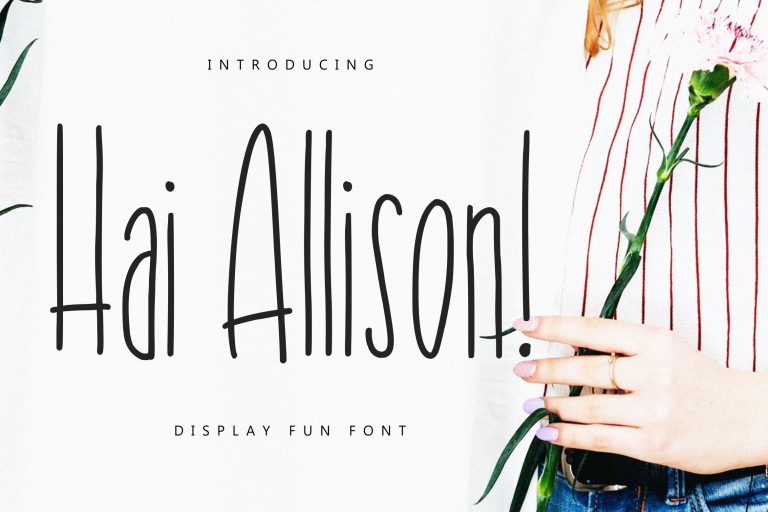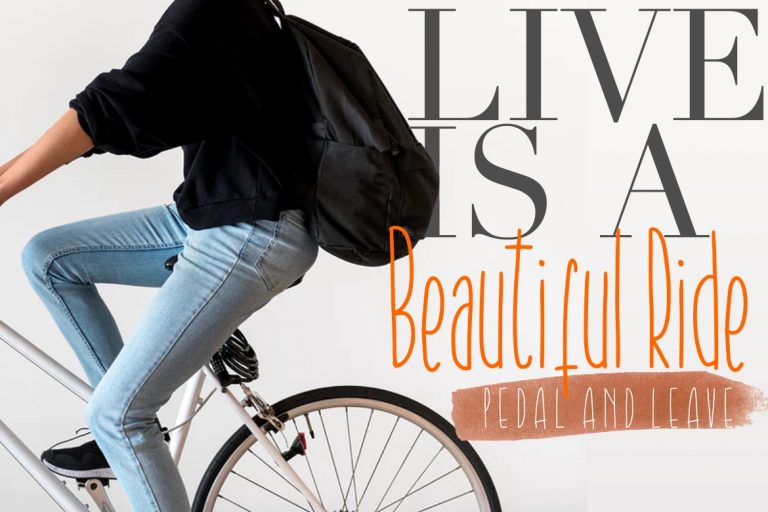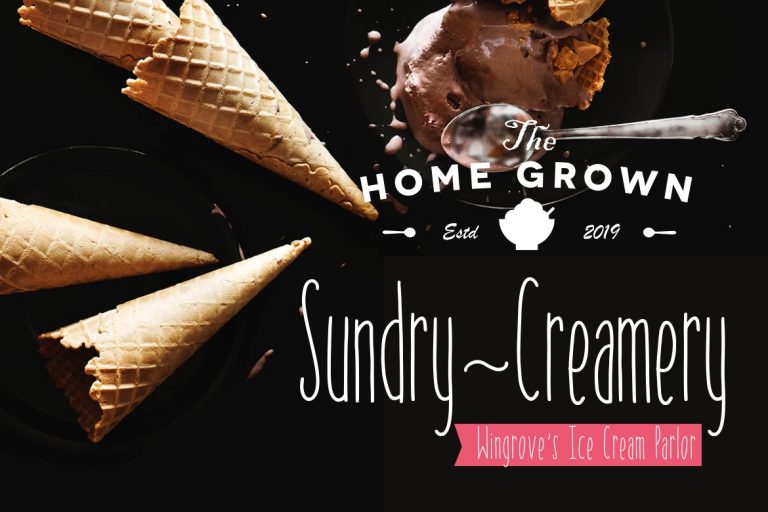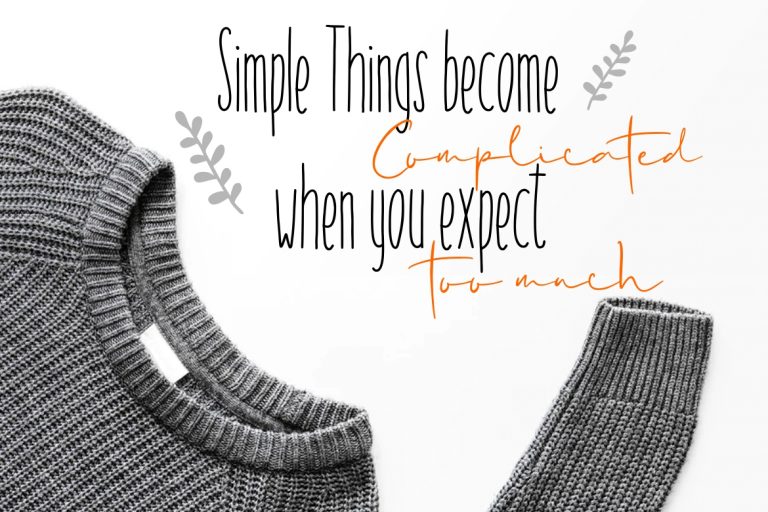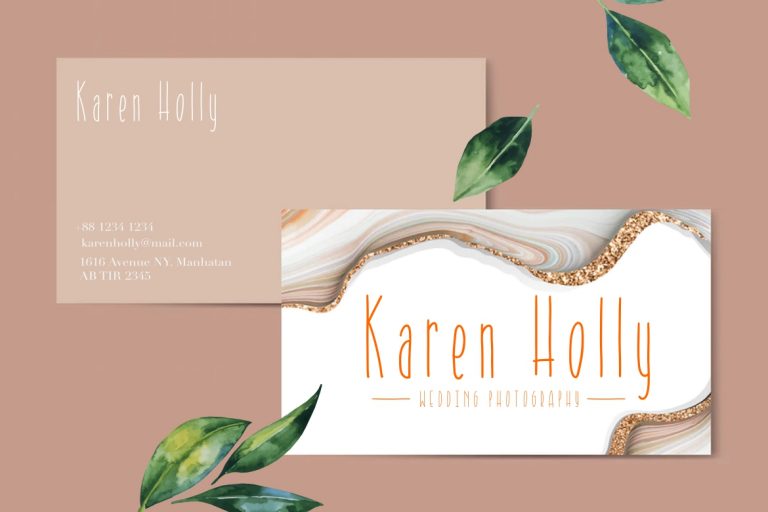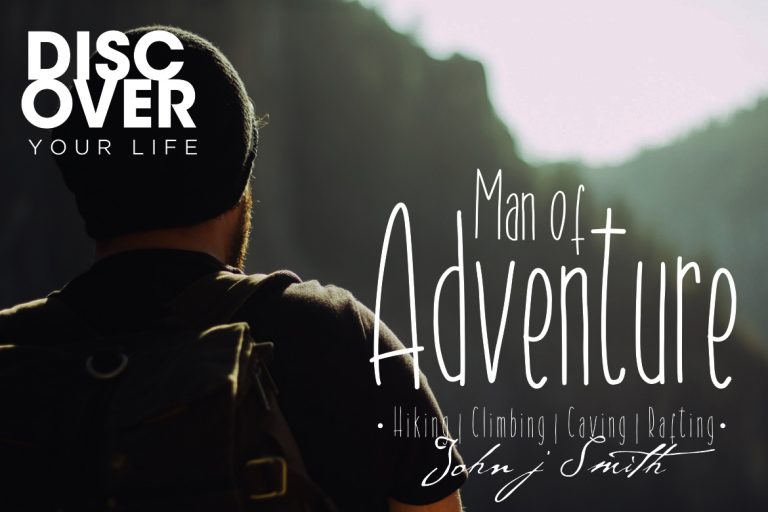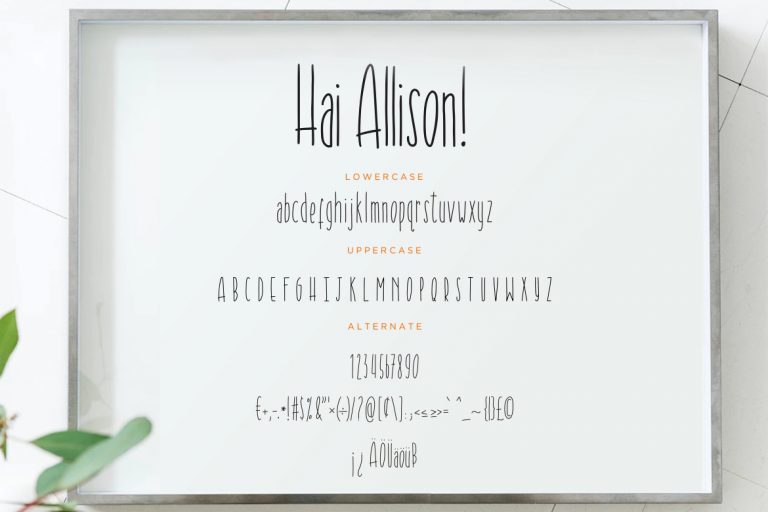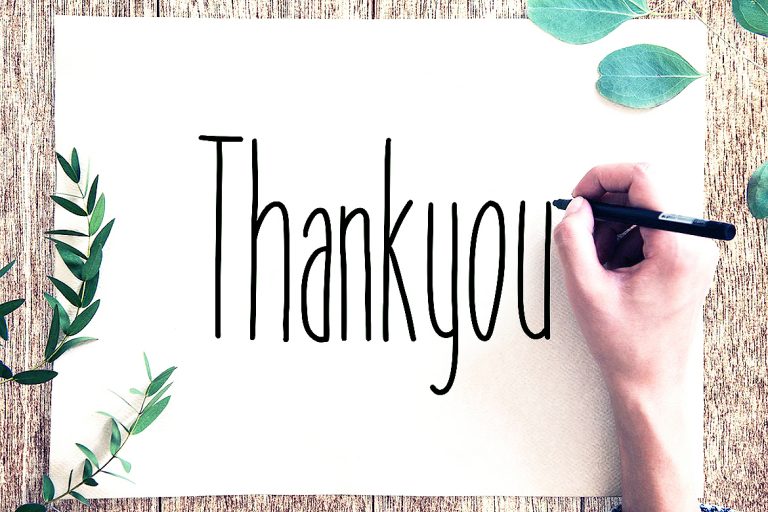
Hai Allison Fun Display
Hai Allison is a handdrawn that fun and fresh display font make looks funny, happy and spirit.
Hai Allison is perfect for branding projects, logo, wedding designs, social media posts, advertisements, product packaging, product designs, label, photography, watermark, invitation, stationery and any projects that need handwriting taste.
- Fonts include multilingual support for; ä ö ü Ä Ö Ü ß ¿ ¡